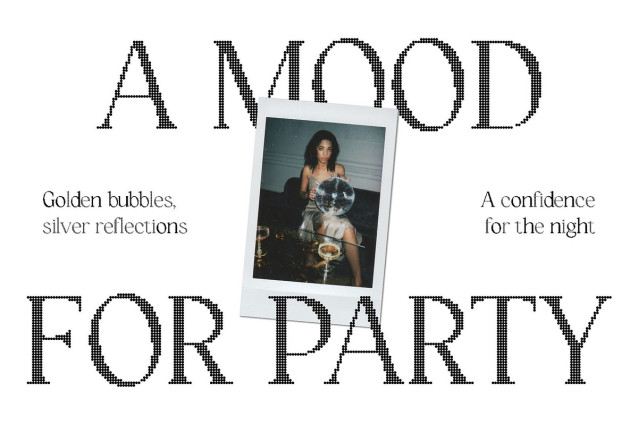
Catelyn Disco Font
Catelyn Disco Font features clean, sleek shapes with contemporary lines that exude elegance and refinement. Its modern classic serif design balances timeless sophistication with modern simplicity, creating a polished and professional look that enhances the visual impact of any project.
Disco Flair for Glamorous Energy A subtle disco effect adds sparkle, rhythm, and dynamic vibration to each character. This glamorous detailing brings movement and energy to your text, transforming ordinary layouts into vibrant, captivating designs that attract attention and evoke excitement.
Elegant, Refined, and Visually Striking The combination of classic elegance, modern simplicity, and disco-inspired accents gives Catelyn Disco a stylish and sophisticated personality. Its stylish forms communicate sophistication while maintaining a lively, eye-catching presence that works across diverse design projects.
Perfect for Luxury and Creative Projects Catelyn Disco excels in luxury branding, editorial layouts, high-end posters, packaging, invitations, and other creative applications. The harmonious mix of modern clarity, classic charm, and disco flair ensures your designs convey elegance, professionalism, and visual impact, making every project feel both stylish and memorable. Whether used for headlines, logos, editorial typography, or decorative text, Catelyn Disco adapts seamlessly while maintaining readability and charm.